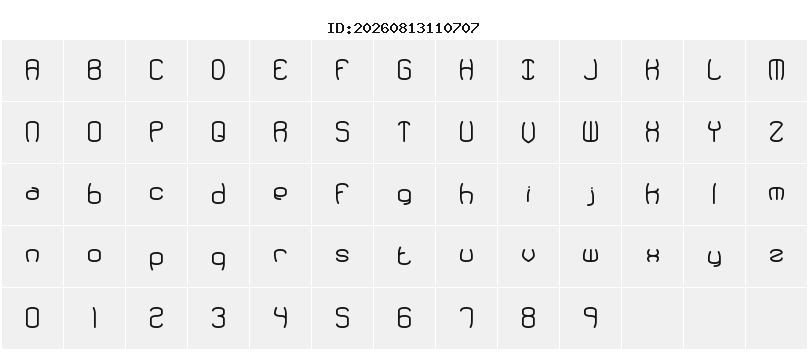
Redundant BRK.ttf
• Font Name: Redundant BRK
About Redundant BRK.ttf
Redundant BRK.ttf is a modern, elegant sans-serif font designed for ultimate readability and visual harmony. Perfect for branding, headlines, web design, and print materials.